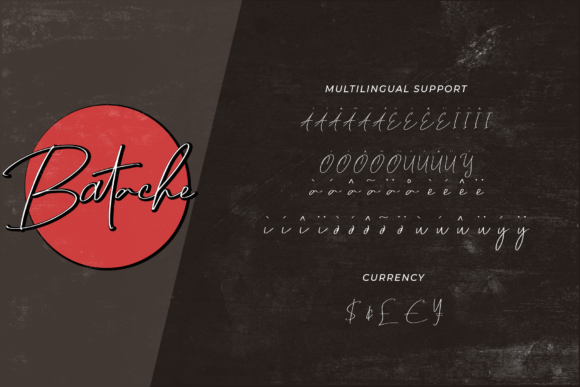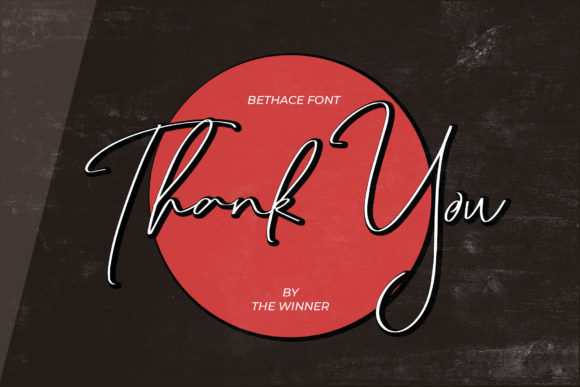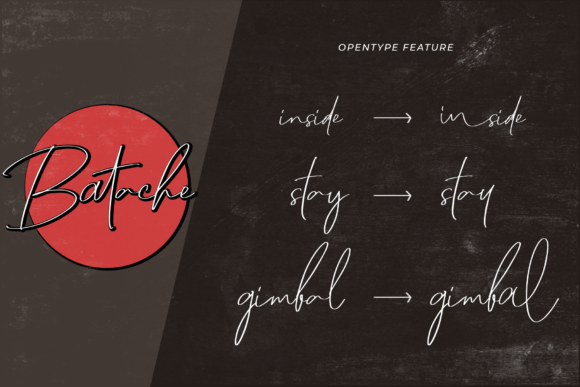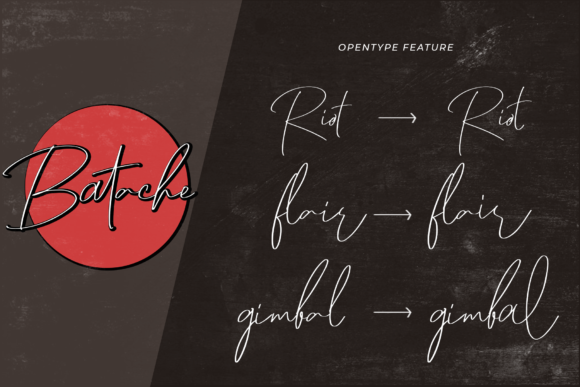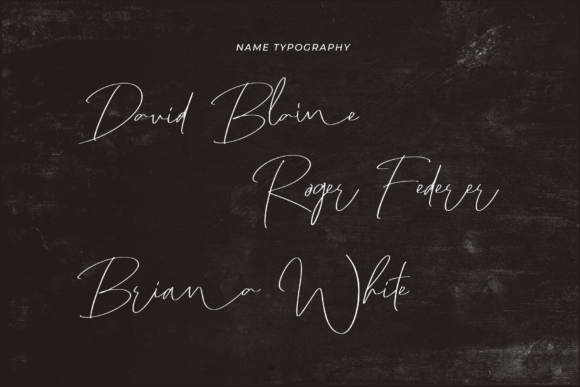
Batache Font
About Batache Font
Batache is an authentic, modern and thin lettered script font. Its informal style and casual vibe will make this font a go-to choice for each of the creations that require a relaxed touch.